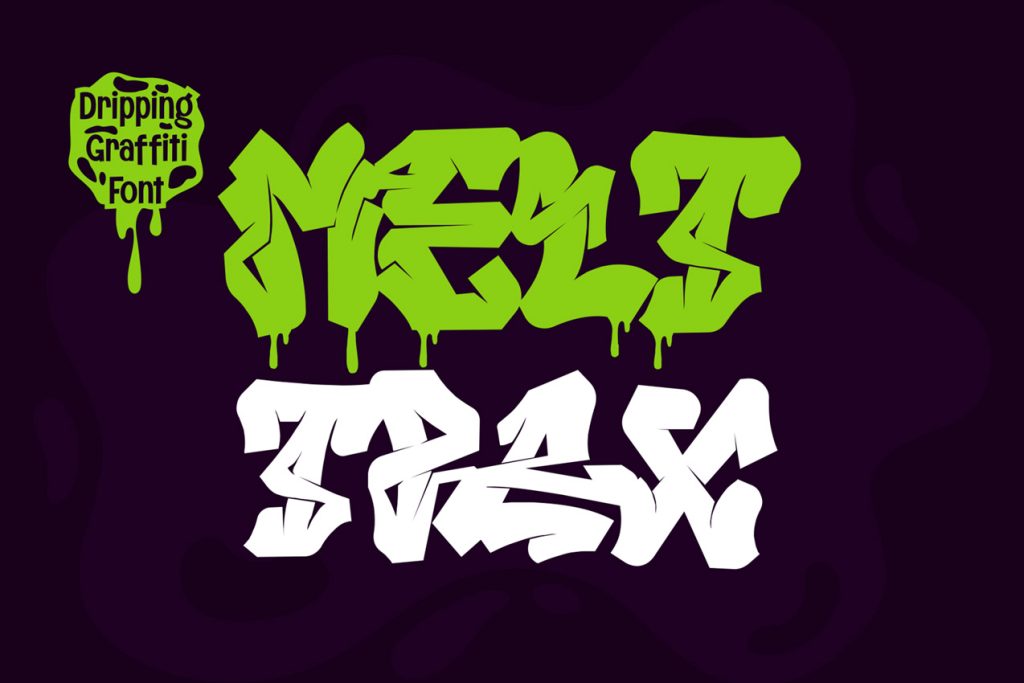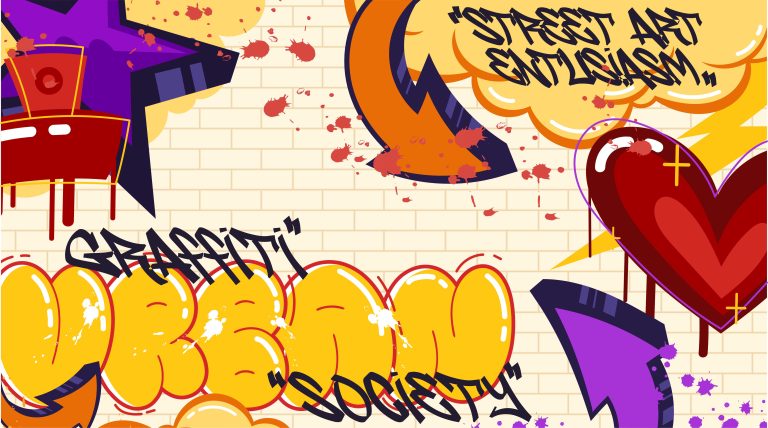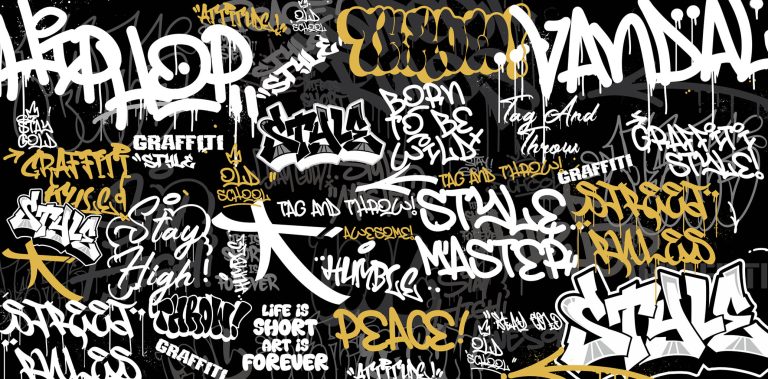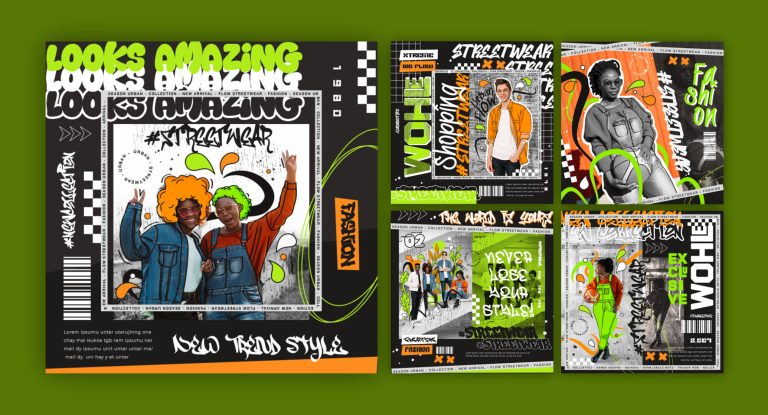
Introduction
In today’s fast-scrolling world, your social media visuals need to stop thumbs in their tracks. Whether you’re a brand owner, freelance designer, or content creator, your choice of font plays a huge role in defining your online identity. Graffiti fonts are no longer confined to street walls — they’ve exploded onto Instagram feeds, TikTok videos, and Pinterest boards.
The right graffiti font can instantly make your design more expressive, rebellious, and unforgettable. In this guide, we’ll explore the best graffiti fonts for social media, why they work, and how you can use them to boost your brand aesthetics.
Why Graffiti Fonts Are Perfect for Social Media Branding
Graffiti fonts have a raw, authentic vibe that resonates with audiences who value creativity and individuality. Unlike generic typefaces, these fonts bring personality to your captions, quotes, and promotional graphics.
Key reasons they stand out:
-
Authenticity — They project a handcrafted, unique feel.
-
Versatility — Suitable for posters, video overlays, and even logo designs.
-
Attention-grabbing — Their bold shapes and energetic strokes make them perfect for feeds where competition is fierce.
Top 5 Best Graffiti Fonts for Social Media
1. Blaze Marker (Cikareotype Studio)
A bold, free-flowing graffiti font with powerful brush strokes, perfect for Instagram quote posts and YouTube thumbnails.
Best for:
-
Motivational quote designs
-
TikTok video captions
-
Event flyers
2. Meltdown Phantom (Cikareotype Studio)
A monoline script graffiti font available in two styles — dripping and clean. The dripping version adds an urban, rebellious edge to your posts.
Best for:
-
Streetwear product promos
-
Music event posters
-
Pinterest mood boards
3. Melttrax (Cikareotype Studio)
Wild, dripping style graffiti font that screams energy and attitude. Ideal for edgy branding and high-impact announcements.
Best for:
- Dance event promotions
-
Sports graphics
-
Limited edition product launches
4. Street Shade (Cikareotype Studio)
A 3D decorative graffiti font with multiple styles — Regular, Hollow, Outline, and Extrude. Perfect for eye-catching headlines in social media banners.
Best for:
-
Facebook ads
-
YouTube channel headers
-
Merchandise mockups
5. External Pick: (1001fonts.com)
A free graffiti font that pairs well with bold photography. Great for testing graffiti typography in your brand visuals.
How to Choose the Right Graffiti Font for Your Social Media
When selecting a graffiti font, consider:
-
Readability: Even bold designs should be legible.
-
Style match: Does it align with your brand’s personality?
-
Platform use: Different fonts shine on different platforms.
From Our Desk: What We’ve Learned About Graffiti Fonts
At Cikareotype Studio, we’ve experimented with dozens of graffiti styles — from sketching by hand to refining in Procreate. One thing we’ve found: the fonts that perform best on social media are the ones that tell a story at first glance.
By infusing personality into each letter, we’ve helped creators, small businesses, and global brands alike stand out in crowded digital spaces.
Pro Tips for Using Graffiti Fonts Online
-
Pair with clean backgrounds — Let the font take center stage.
-
Use minimal text — Graffiti fonts are statement pieces, not paragraph fonts.
-
Experiment with color overlays — Bold colors amplify the rebellious vibe.
Closing Thoughts & Call to Action
Graffiti fonts aren’t just about rebellion — they’re about self-expression, storytelling, and creating a visual identity that sticks. The right font can make your followers stop, look, and engage.